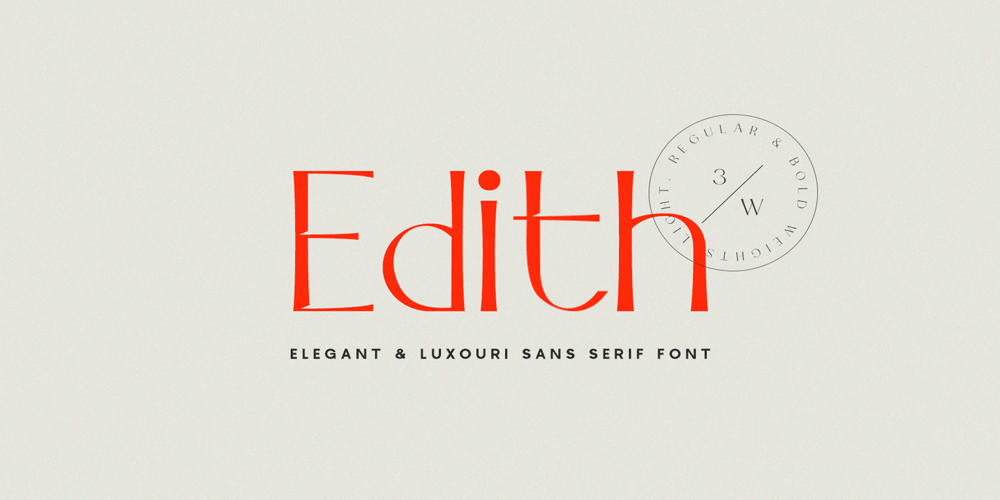
Edith Calamar Font Family was designed by Oksana Petrenko and published by Calamar. Edith Calamar contains 2 styles and family package options. Edith is the new elegant sans serif font that will bring in your projects a touch of luxury and style. It’s perfect match for logotypes, branding, wedding monograms and invitations, blog headlines and much more.